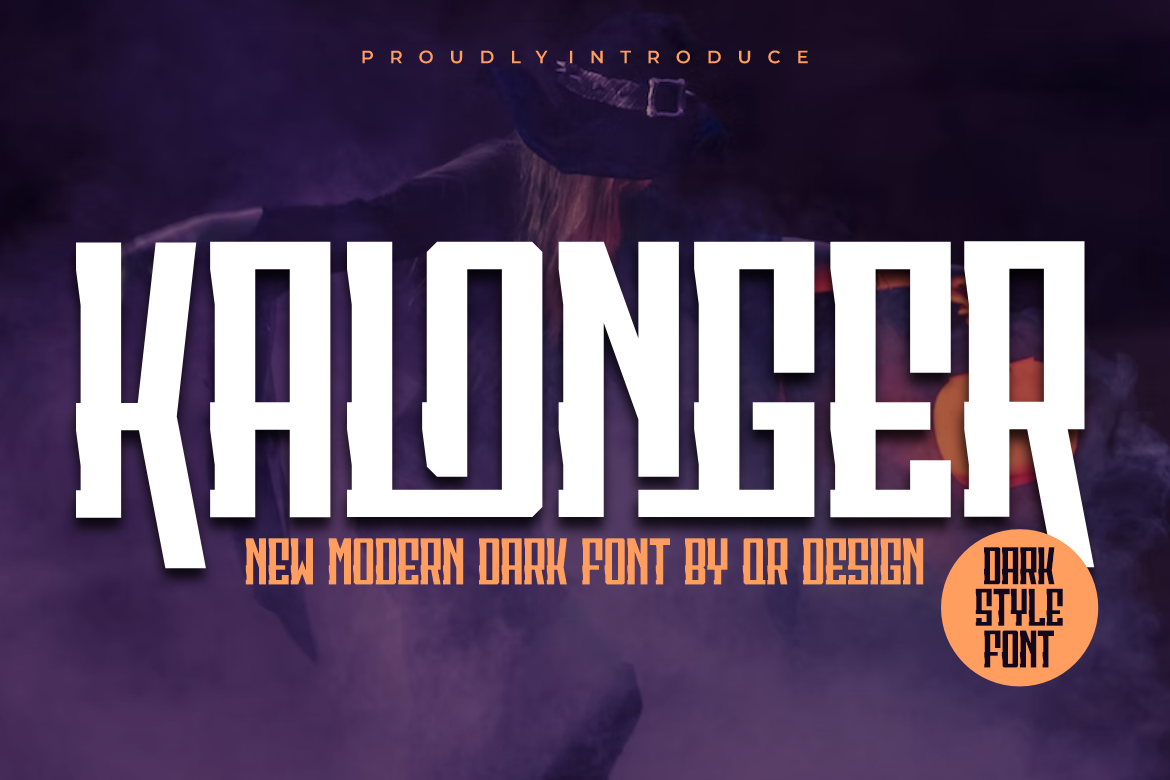
Kalonger Font
Kalonger Font Font is a bold and authentic display font. The font is suitable for any branding project like logo, sport, and many more. Outstanding in a wide range of contexts.